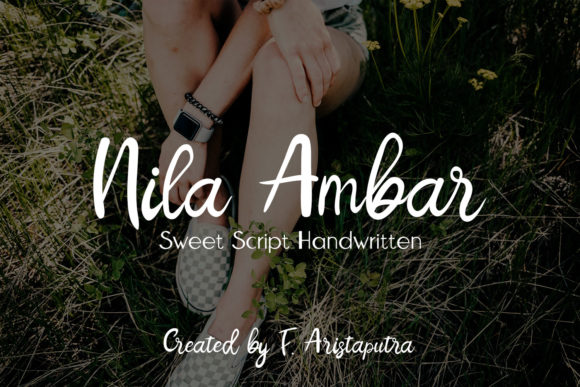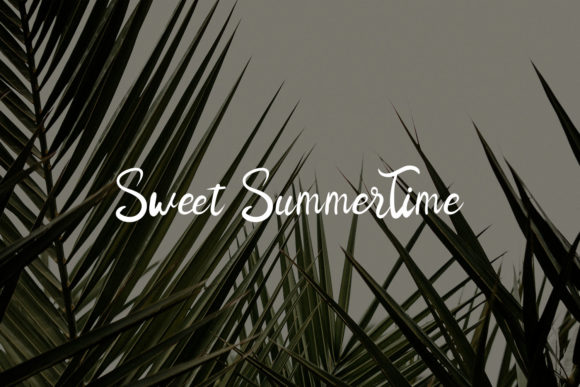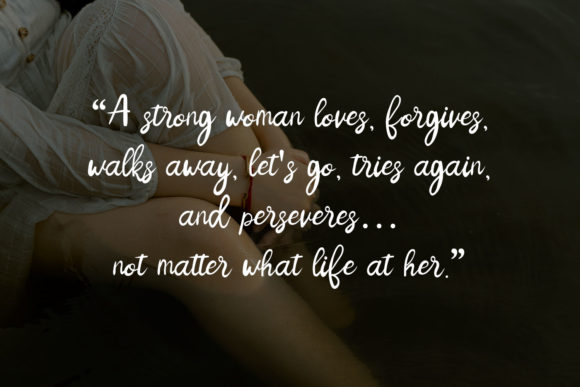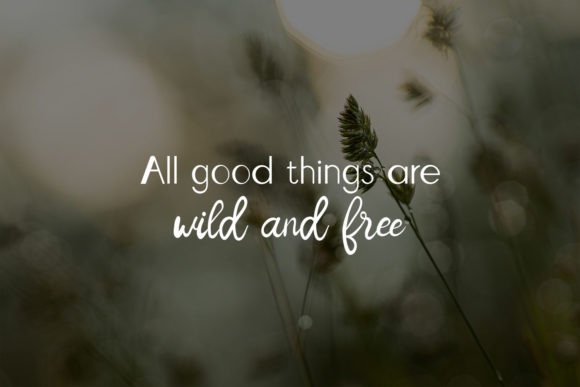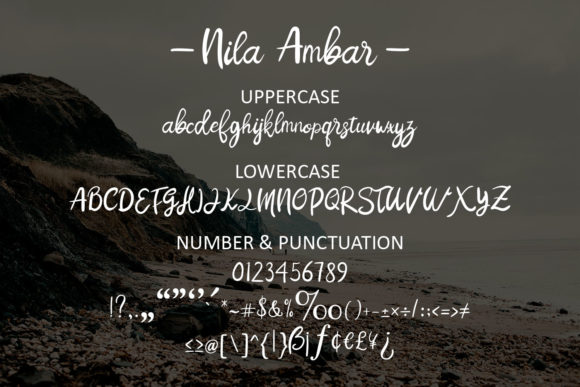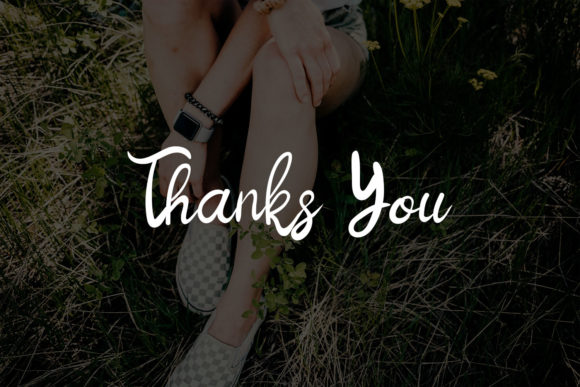
Nila Ambar Font
About Nila Ambar Font
Nila Ambar is a beautiful and flowing handwritten font. Fall in love with its incredibly versatile style and use it to create gorgeous wedding invitations, beautiful stationary art, eye-catching social media posts, and much more!